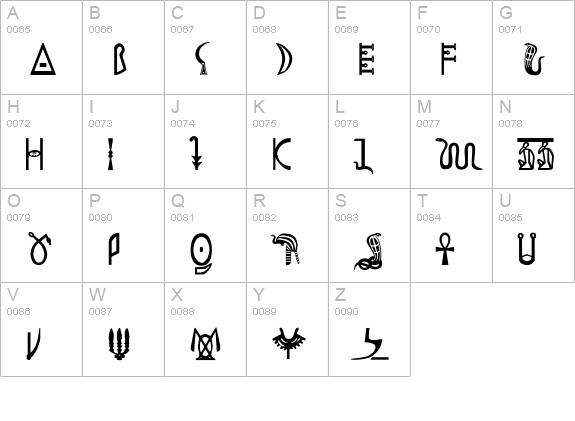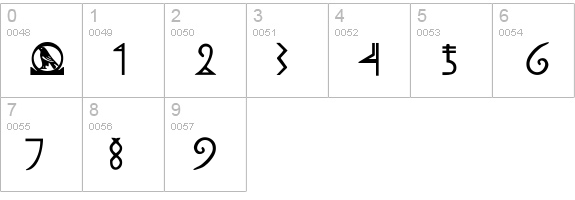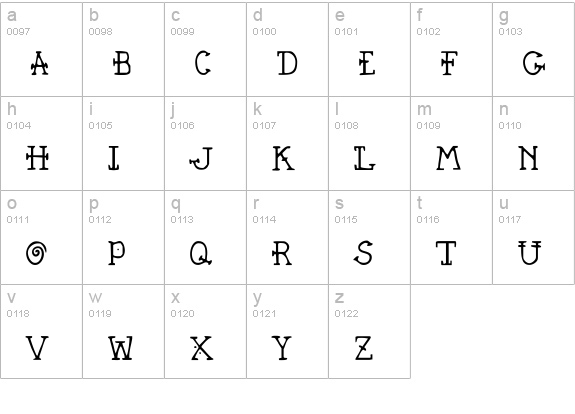
Pegypta Font Details
Introducing Pegypta, a stunningly unique and versatile font designed to bring a touch of elegance and sophistication to any project. With its delicate curves, refined strokes, and exquisite attention to detail, Pegypta is sure to captivate and inspire. This font effortlessly combines a classic charm with a modern twist, making it perfect for a wide range of design applications. Whether you're designing a logo, crafting an invitation, or creating beautiful typography for your next project, Pegypta will add that extra layer of beauty and professionalism. But what truly sets Pegypta apart is its availability as a free download. That's right, this incredible font can be yours without spending a penny. Thanks to FontsMarket.com, you can easily access and download Pegypta to enhance your creative endeavors. So why wait? Unlock the potential of your designs with Pegypta's timeless elegance and stylish versatility. Download it for free today at FontsMarket.com and let your creativity soar to new heights.